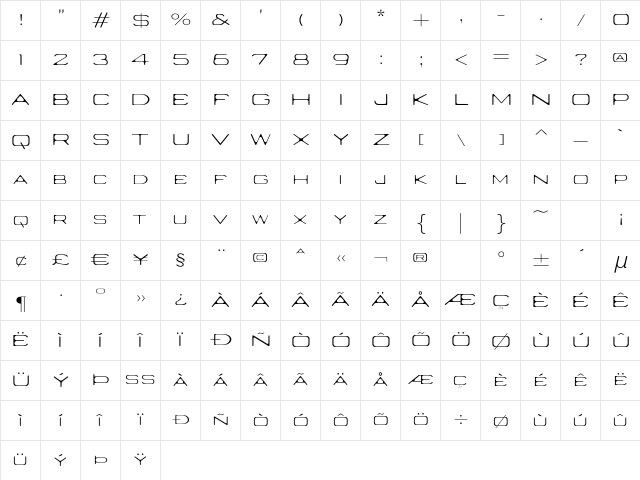
Nedian is a composed and adaptable typeface that performs quietly and consistently across a wide range of design contexts. Its slender proportions lend an understated elegance to any composition.